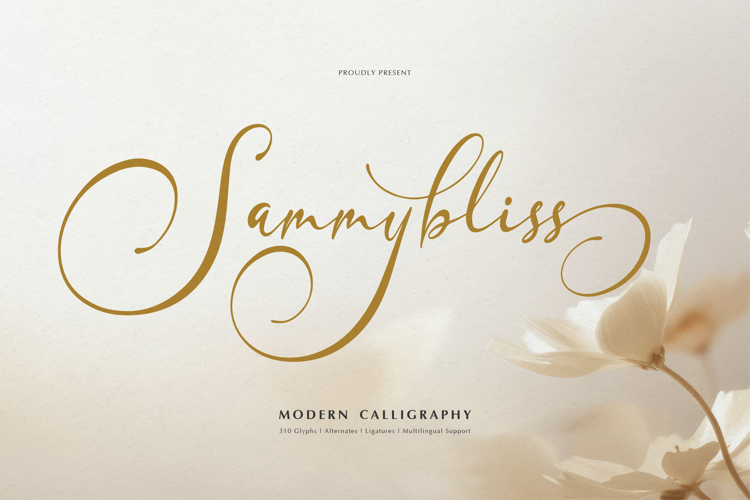
Sammybliss Font
Sammybliss | Modern Calligraphy product packaging, mugs, quotes, posters, shopping bags, t-shirts, book covers, name card, invitation cards, greeting cards, label, photography, watermark, special events, and all your other lovely projects that need a Modern Calligraphy taste.